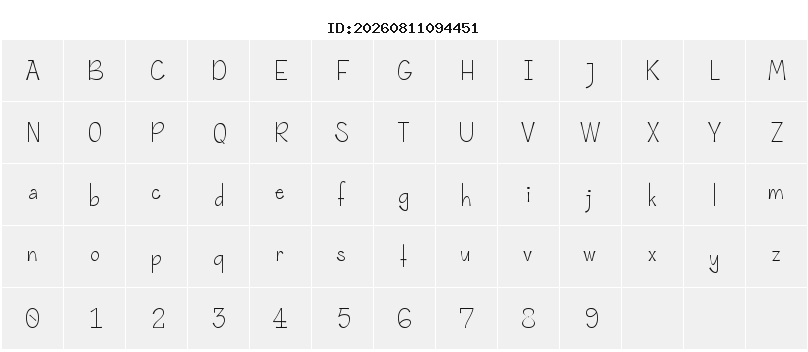
Rolande Preview
• Font Name: Rolande
• Full Font Name: Rolande
• Version: Version 1.00 August 7, 2016, initial release
• Designer: Lauren Thompson (Nymfont/Nymphont)
About Rolande.ttf
Rolande.ttf is a modern, elegant sans-serif font designed for ultimate readability and visual harmony. Perfect for branding, headlines, web design, and print materials.